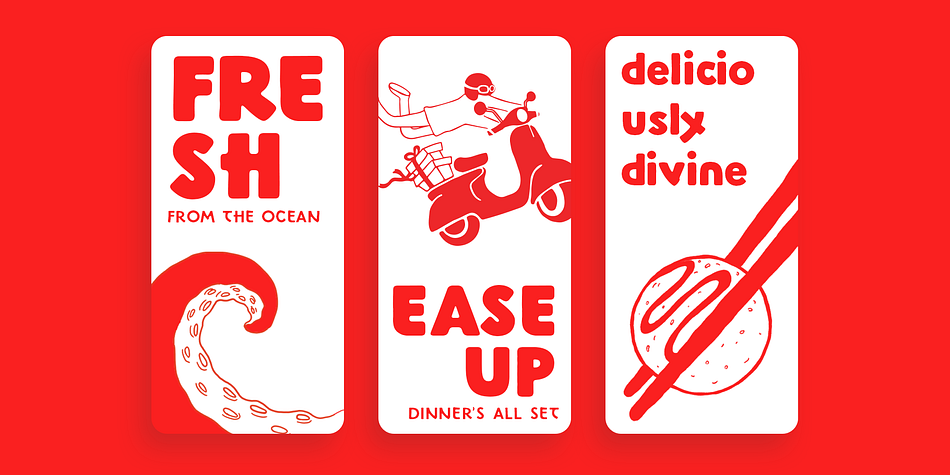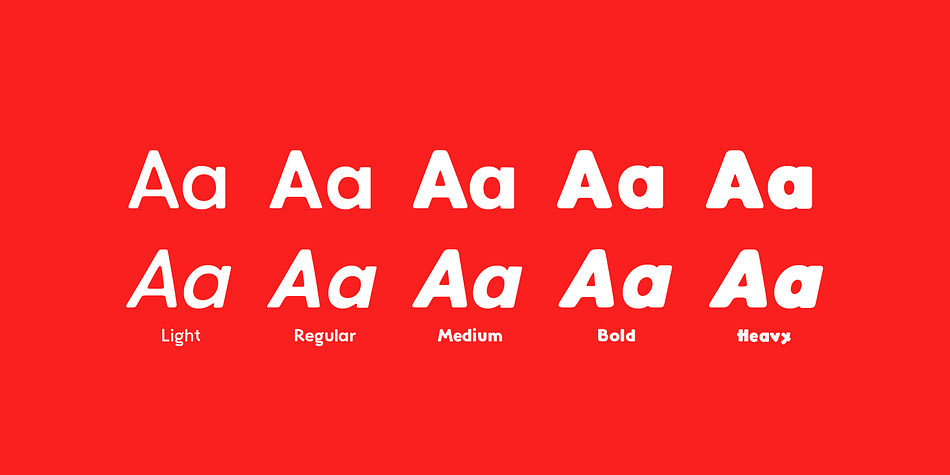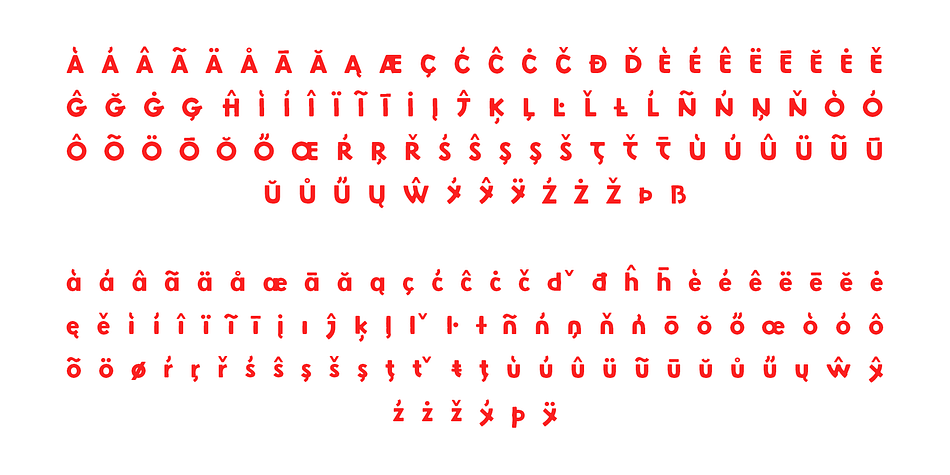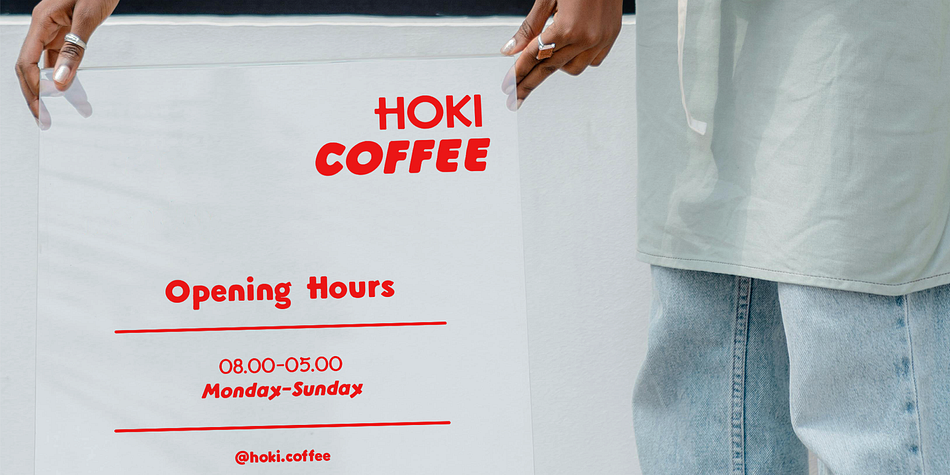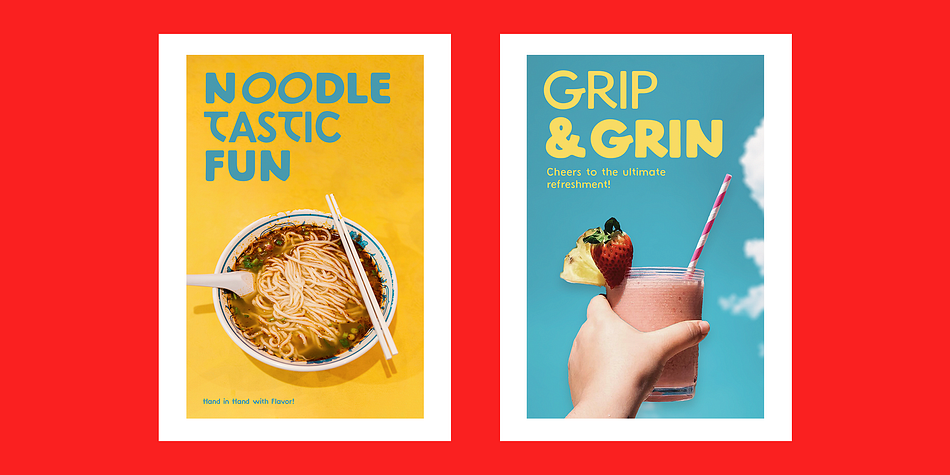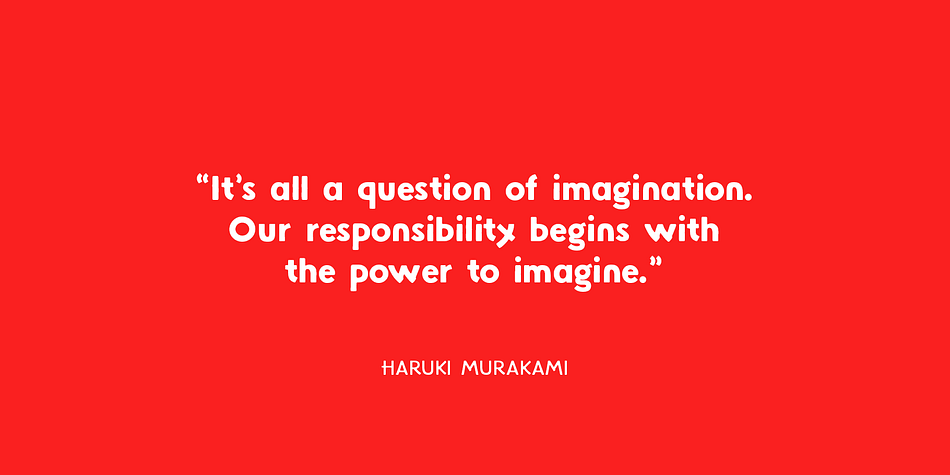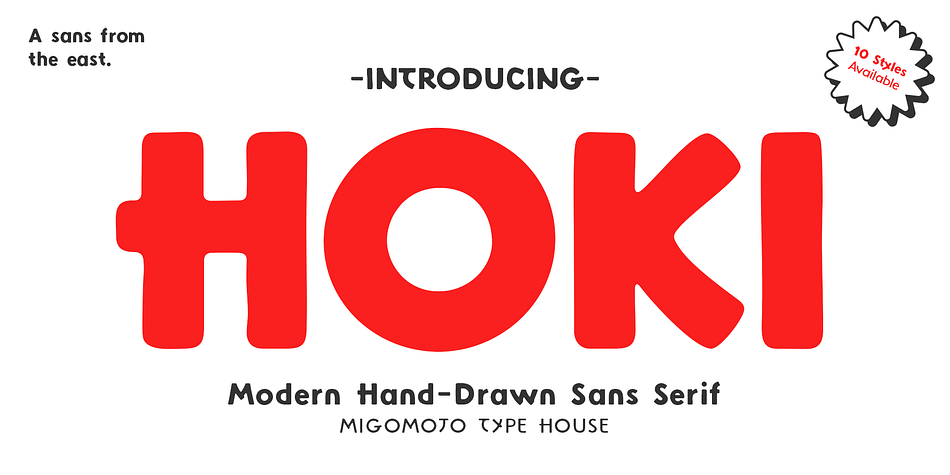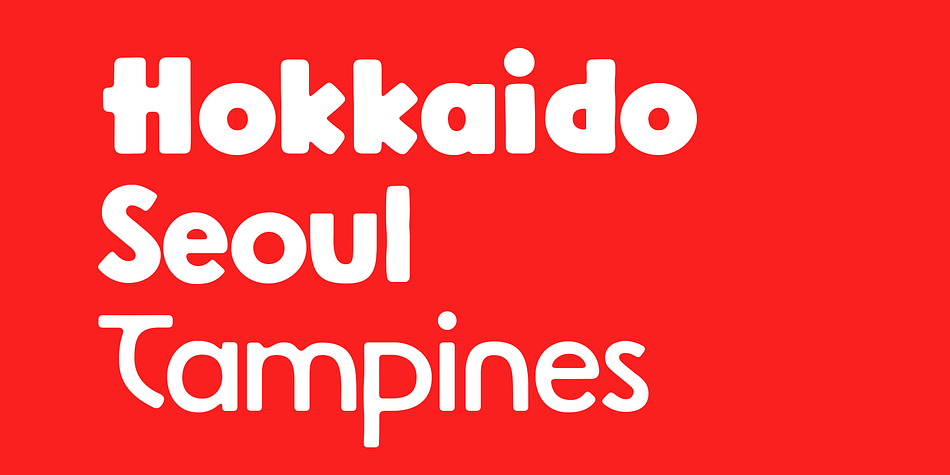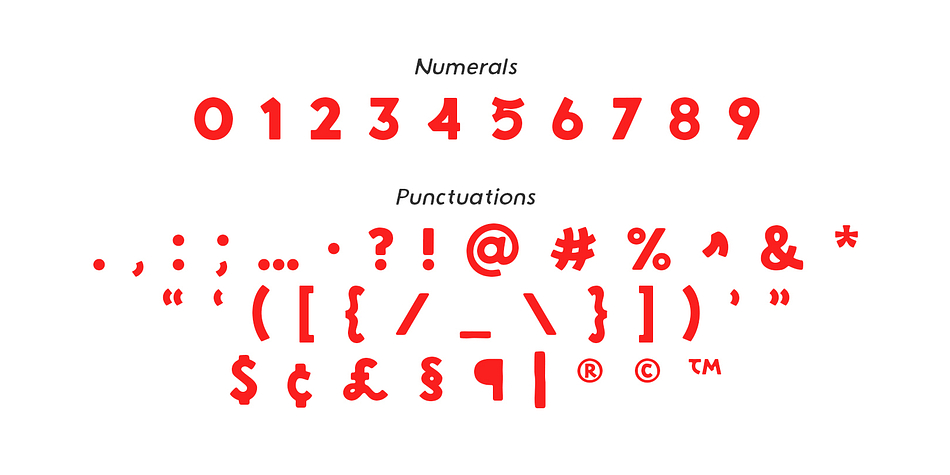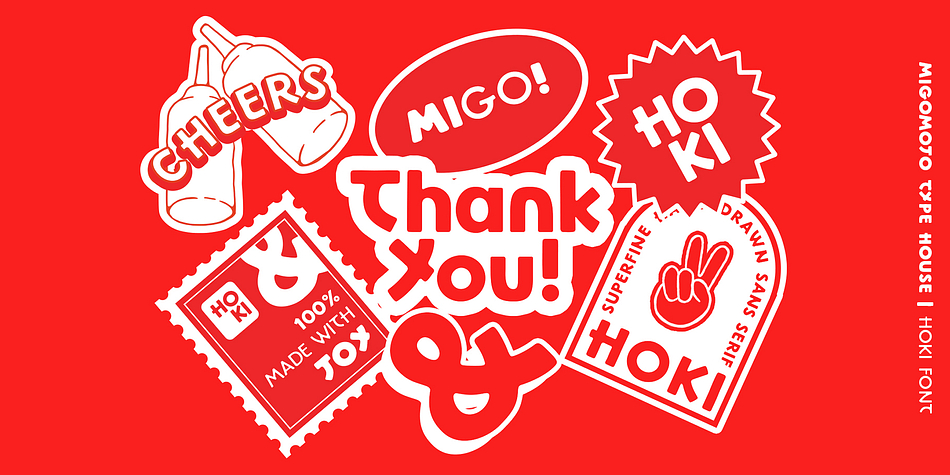
Hoki
Hoki is a sans serif font family. This typeface has ten styles and was published by Migomojo Type House.
Hoki is a contemporary hand-drawn sans-serif font meticulously crafted to embody the essence of Asian typography with a modern twist. Clean, playful, and organic, Hoki inspired from the artistic traditions of East Asia, seamlessly blending traditional aesthetics with a fresh and dynamic design. Hoki offers 5 weight variations and two styles: regular and oblique, totaling 402 glyphs with comprehensive multilingual support. Cheers!